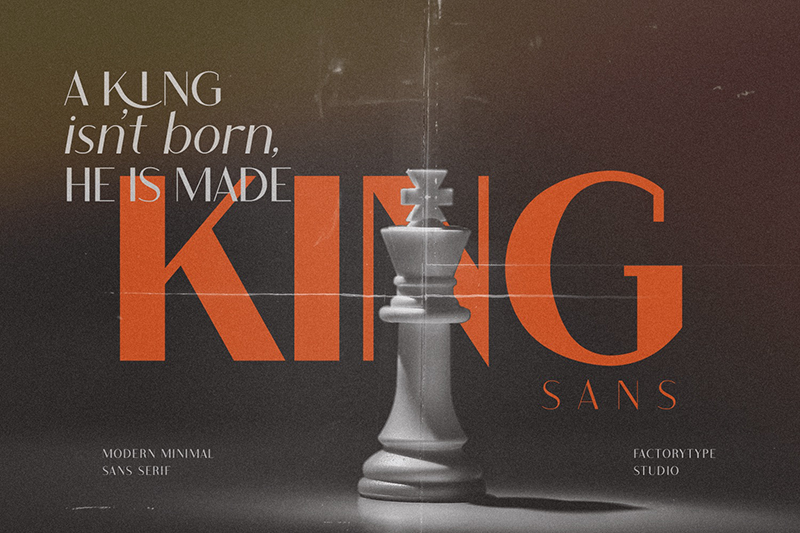
King Sans is a stylish, modern sans serif font � and it�s completely FREE to download! Whether you�re looking for a logo, retro or modern branding, or any other design project, this typeface is the ideal choice. With its minimal and casual style, King Sans is sure to add a unique touch to your project. Get creative and download it today for free! Why You should upgrade to the Full Version: - 5 Weights - 2 Styles (Regular and Italic) - Basic Latin A-Z and a-z - Numerals & Punctuation - Stylistic Ligatures and Alternate glyps - Multilingual Support for � � � � � � � Download Full Version https://go.factory738.com/H37C8c Thanks for looking, and I hope you enjoy it. |